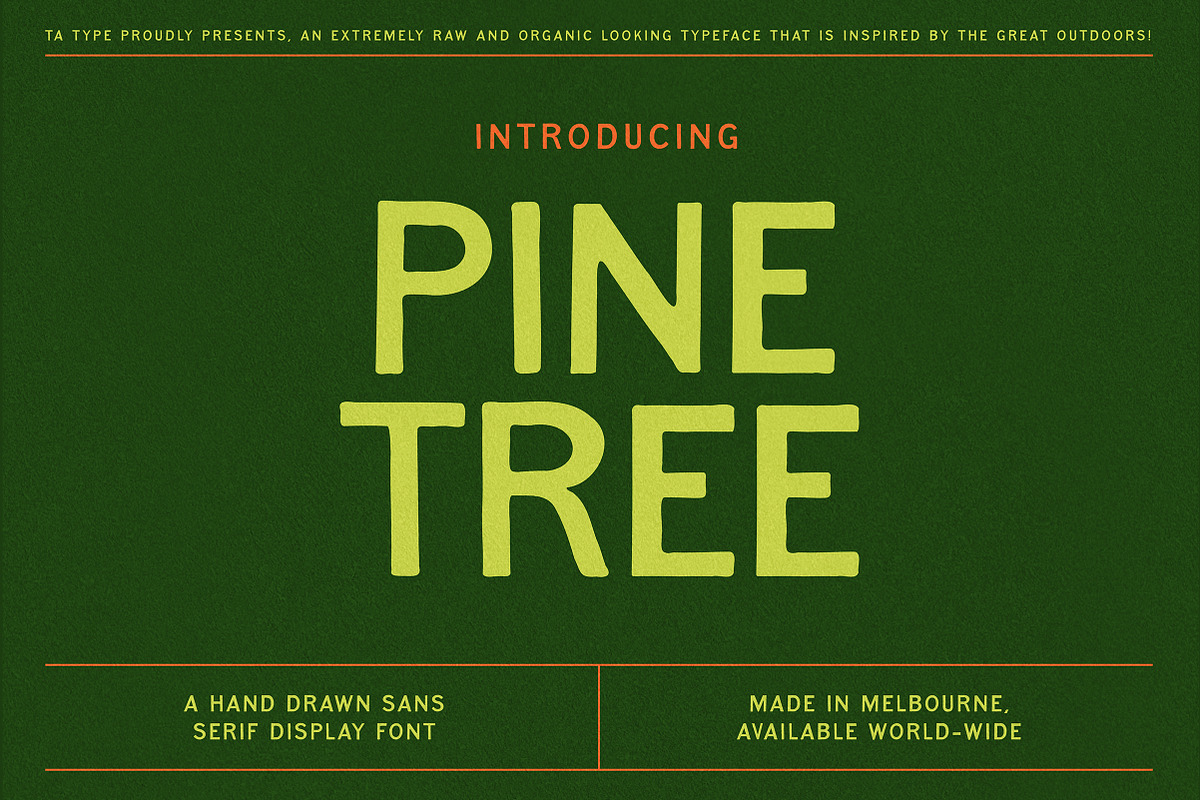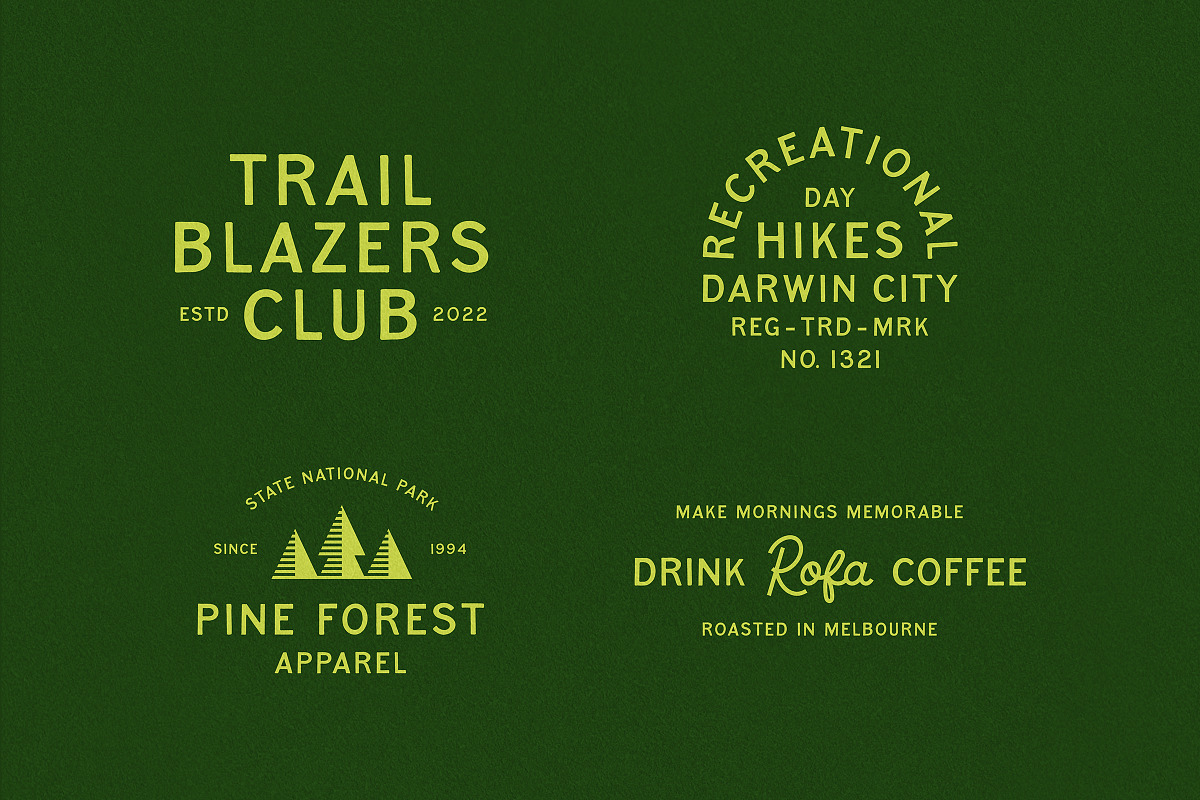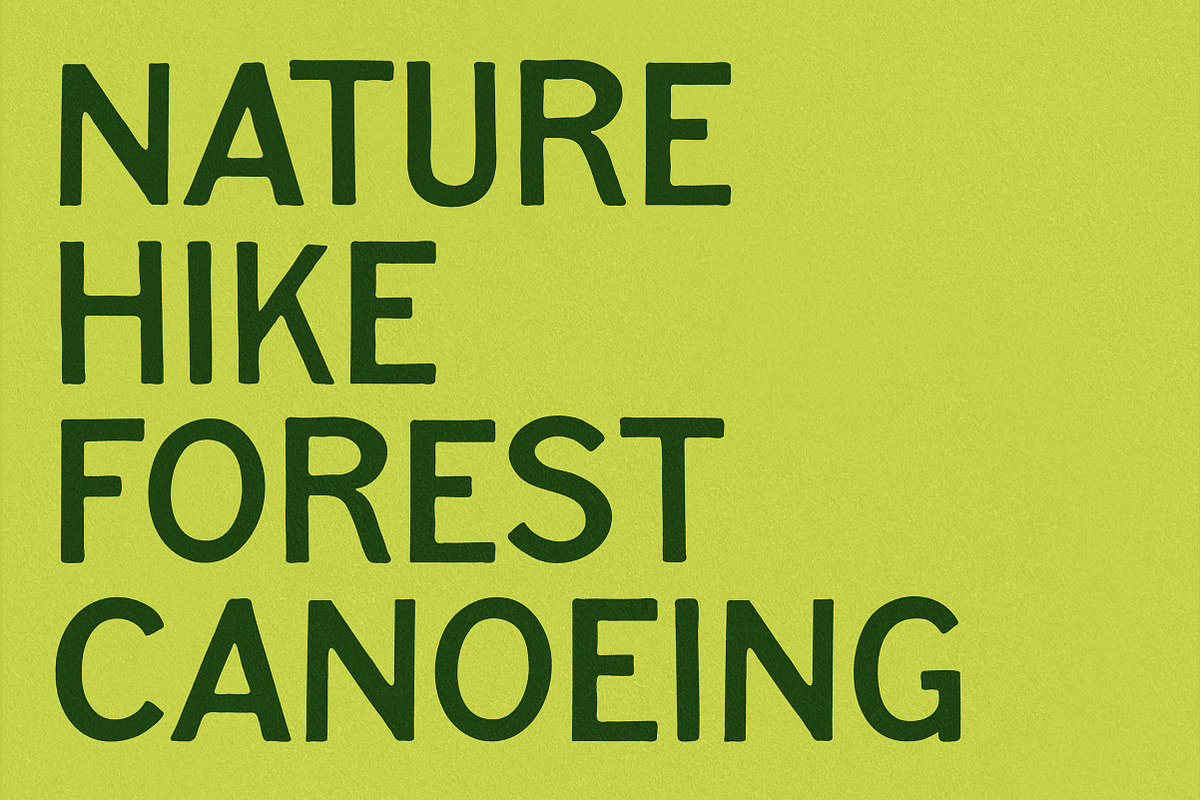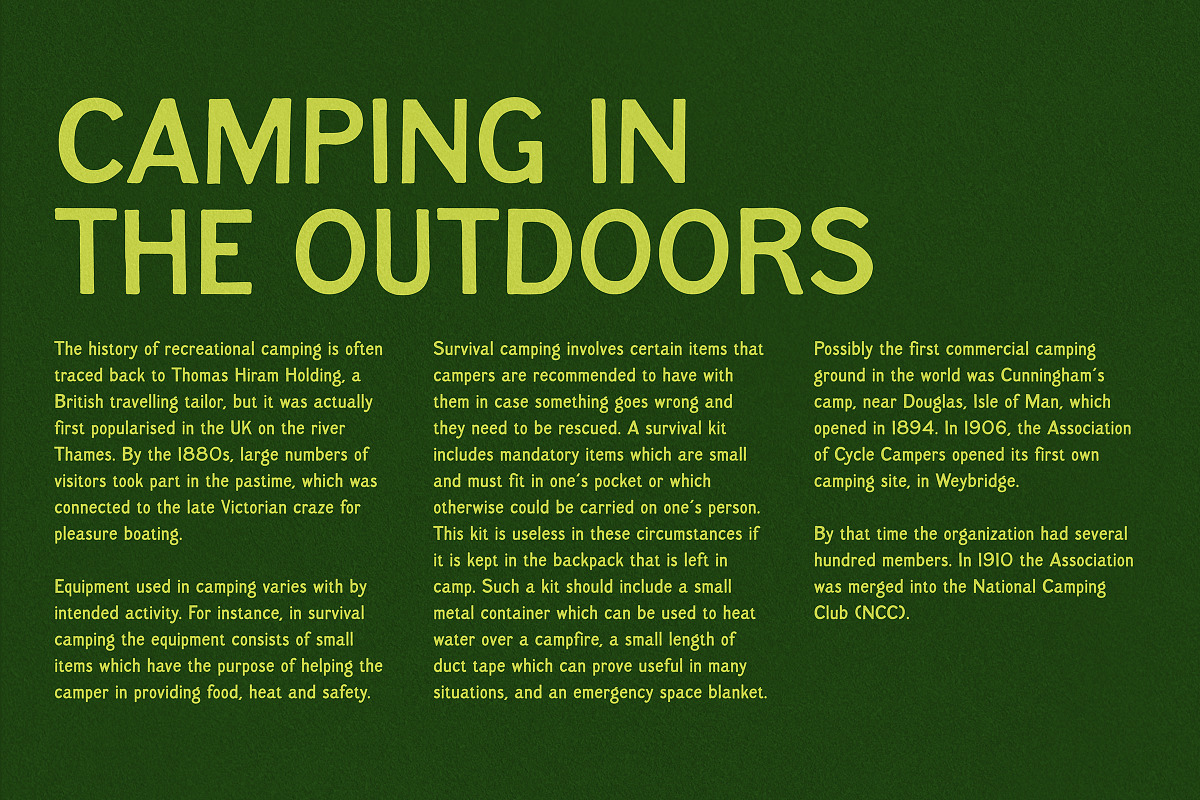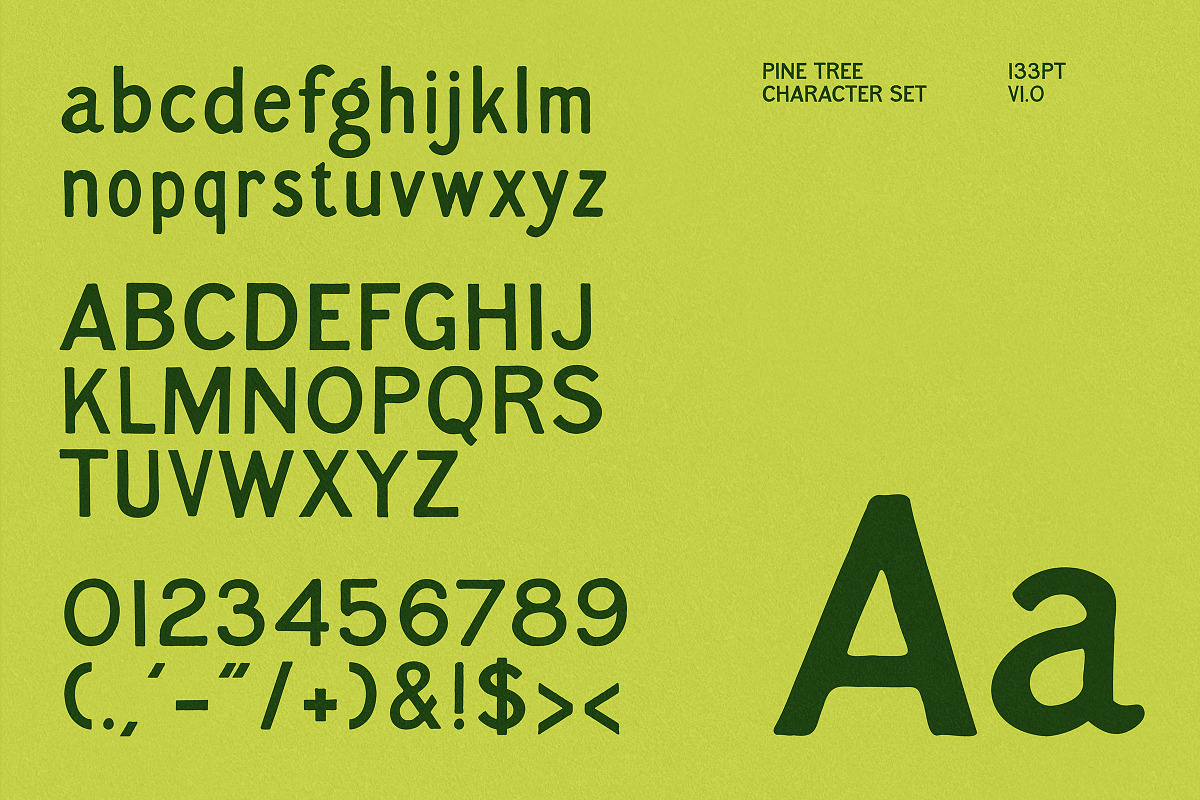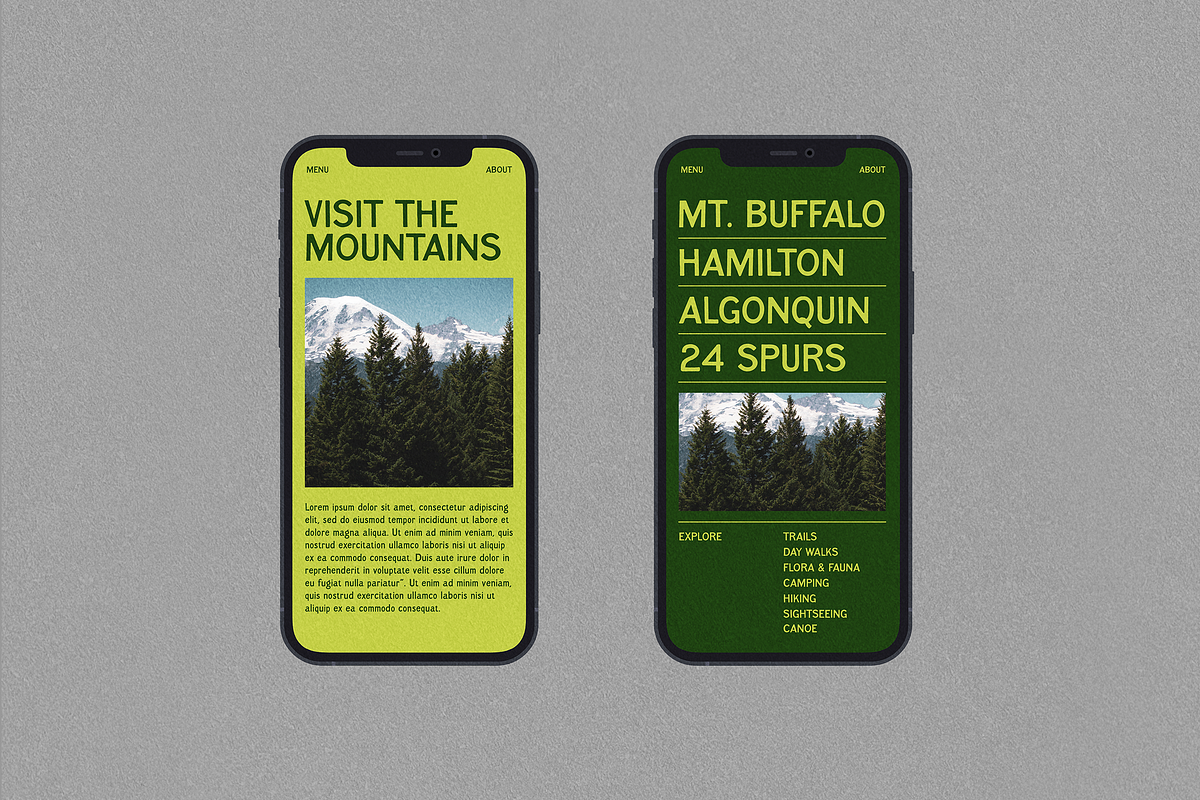
Pine Tree - Hand Drawn Sans
Introducing Pine Tree! A hand drawn sans serif font, that features uppercase, lowercase, numerals and basic punctuation. Perfect for adding a hand drawn feel to any branding, badge designs, typography layouts, posters and more. Retro inspired, but intended for modern day purposes.
- Numbers & Basic Punctuation
- Rough Features